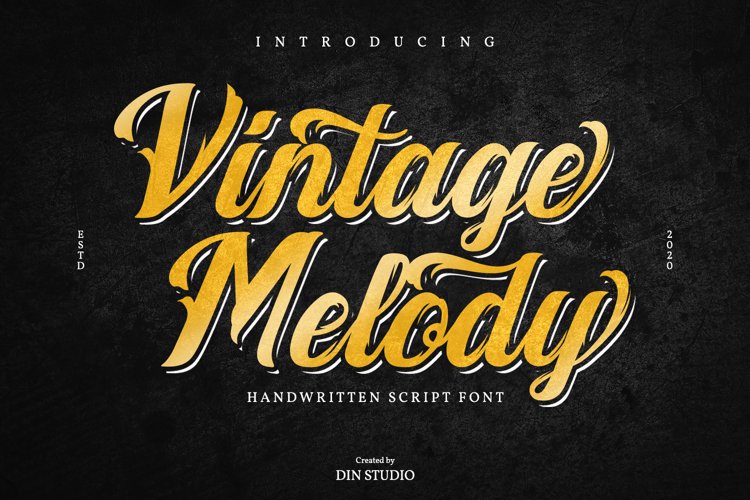
Vintage Melody is a elegant handwritten font. It brings a beautiful and attractive typeface. Made for any professional project branding. It is the best for logos, branding, wedding and quotes.